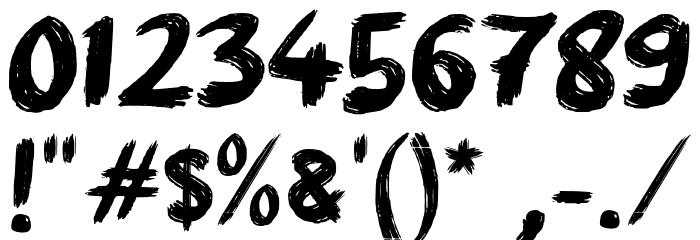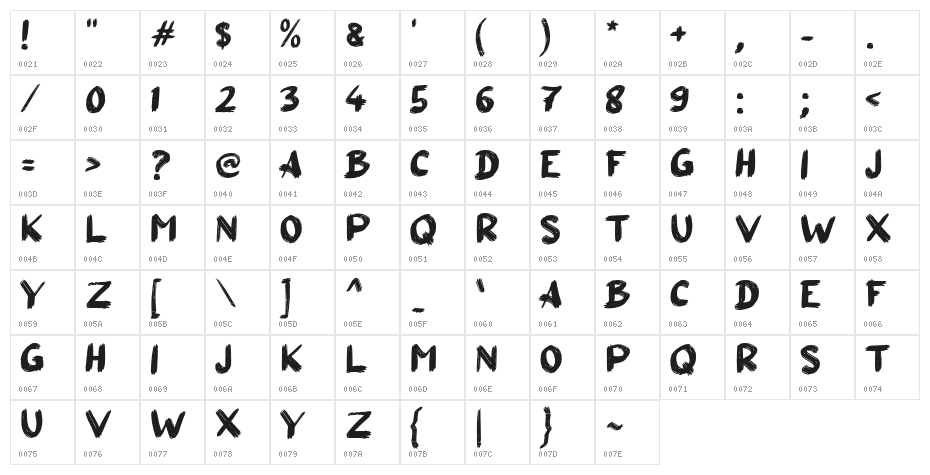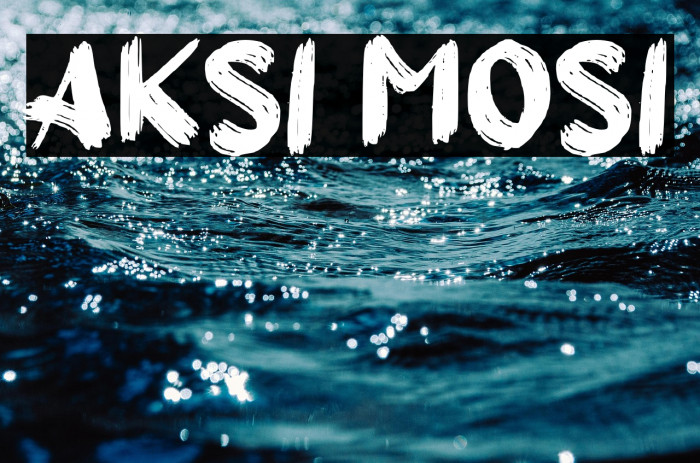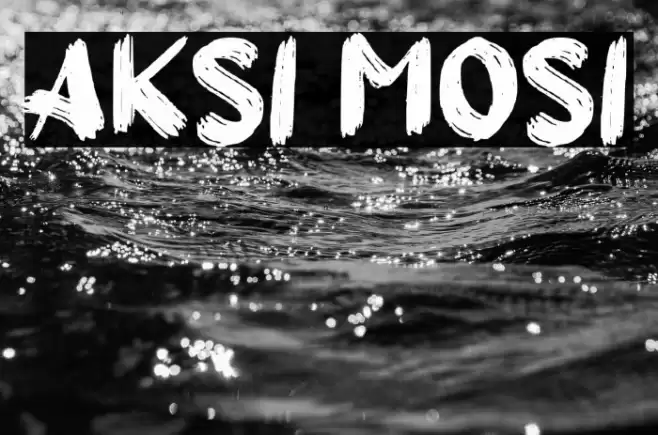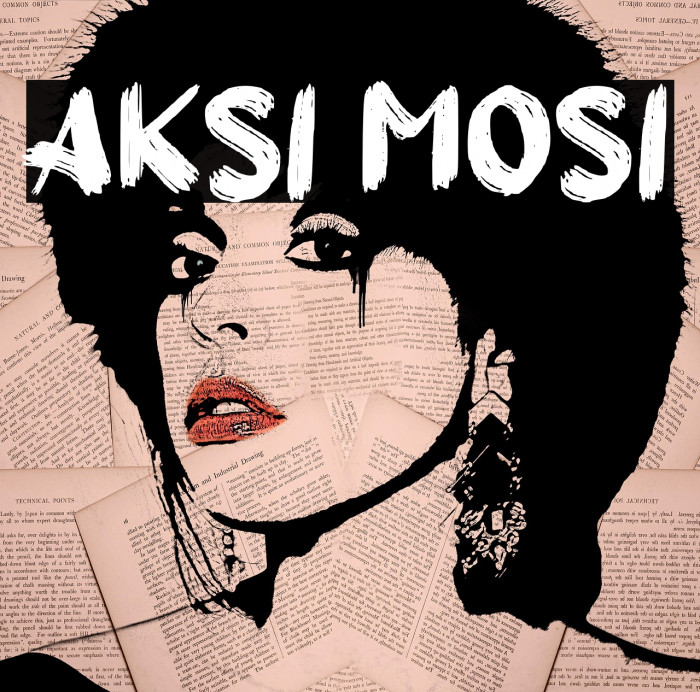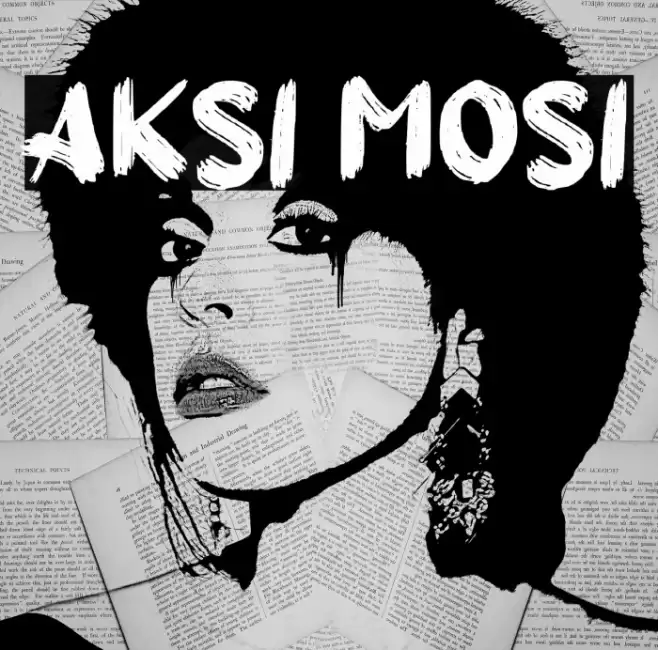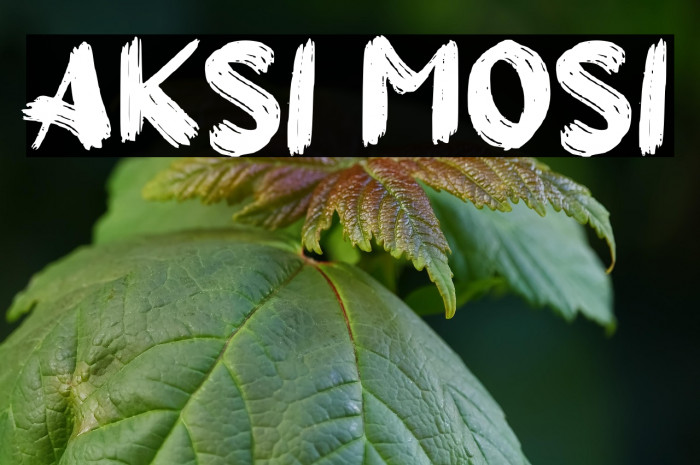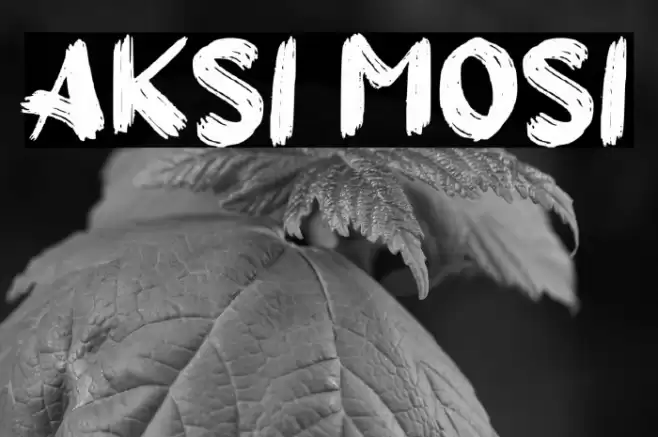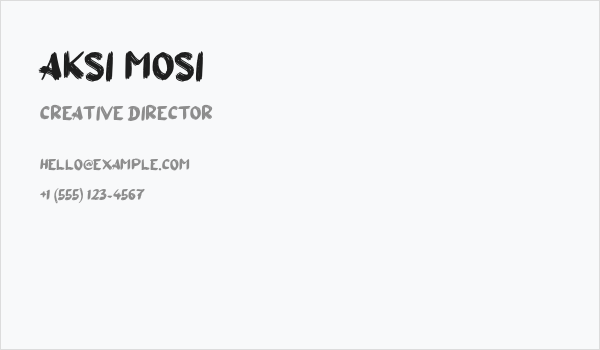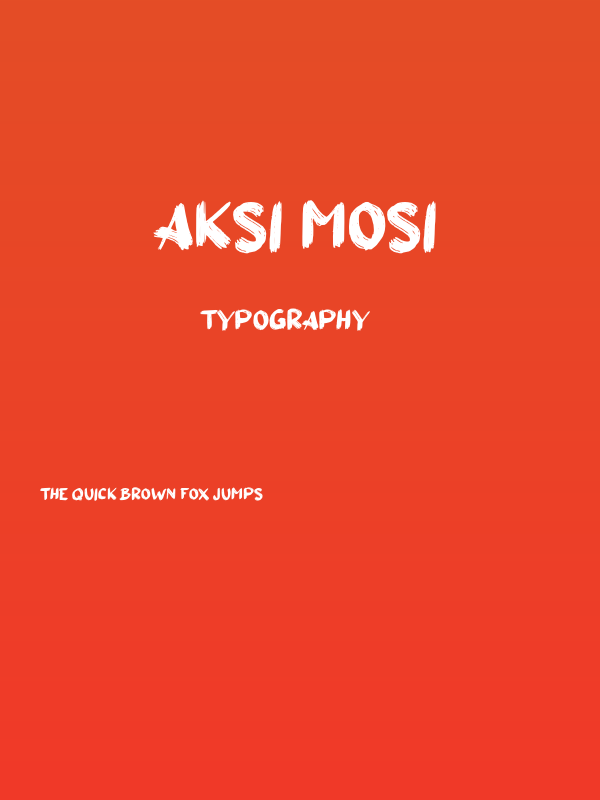
Aksi Mosi Font
Aksi Mosi Description
This font features a bold, brushstroke style that exudes energy and dynamism. The characters are crafted with a rough, textured appearance, reminiscent of hand-painted lettering. Each letter has a unique, slightly irregular form, adding to the font's expressive and artistic nature. The uppercase and lowercase letters maintain a consistent style, with thick strokes and a sense of movement. Numbers and special characters follow the same design principles, ensuring a cohesive look across all elements. This font is ideal for projects that require a bold and impactful visual statement, such as posters, headlines, and branding materials.
| Proposed Projects | Ideal for posters, headlines, branding, and any project needing a bold, artistic touch. |